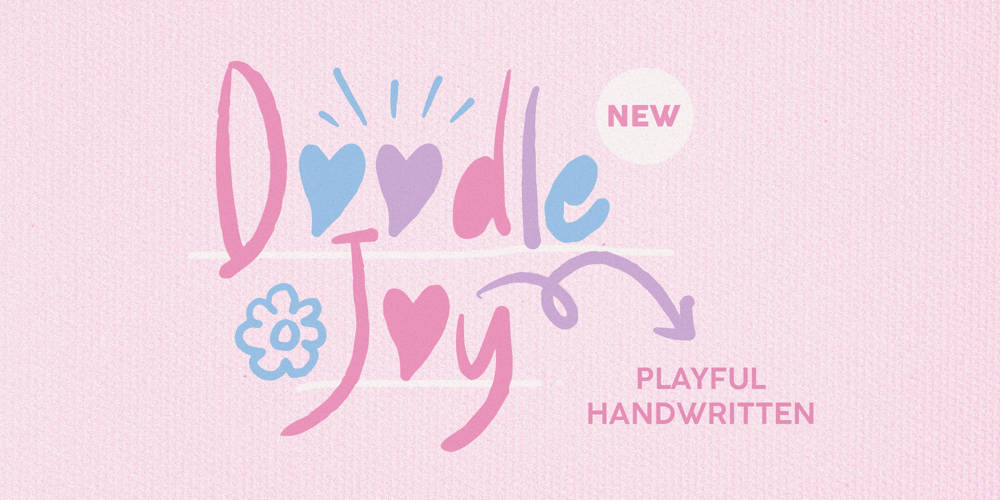
Doodle Joy
Doodle Joy font
Doodle Joy Font Family was designed by Amelia Dian Isnaini and published by Sloulyfe Studio. Doodle Joy contains 1 styles and family package options. Dive into boundless creativity with Doodle Joy – the cutest handwriting font in town! Its carefree strokes and bubbly character make it perfect for a range of purposes, from crafting journaling masterpieces to adorning t-shirts, mugs, posters, logos, and beyond. Features : uppercase & lowercase, numbers and punctuation, multilingual & PUA encodedLet Doodle Joy bring a touch of whimsy to your creations and watch your designs come to life effortlessly!